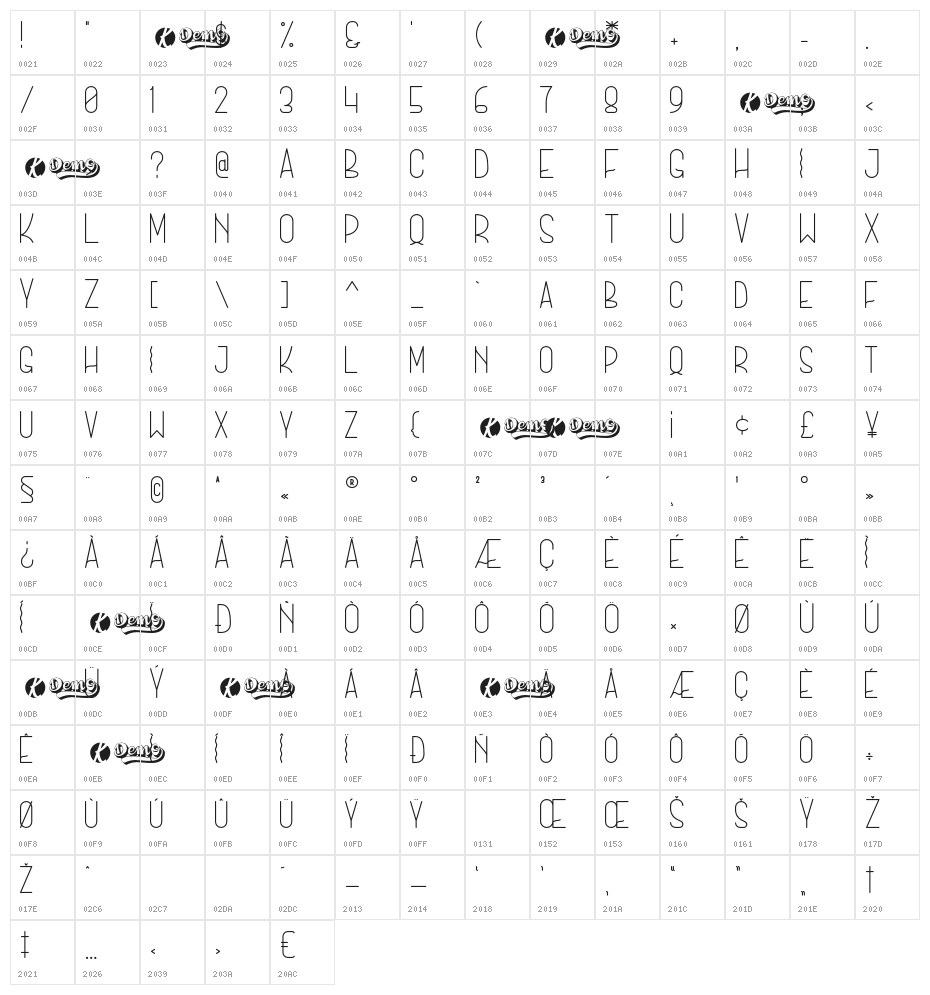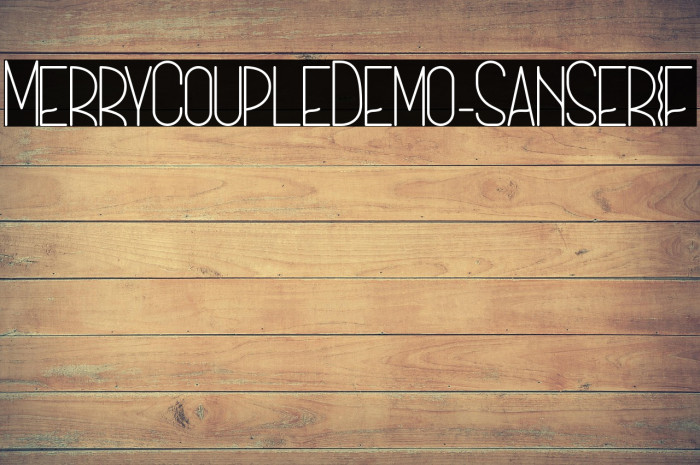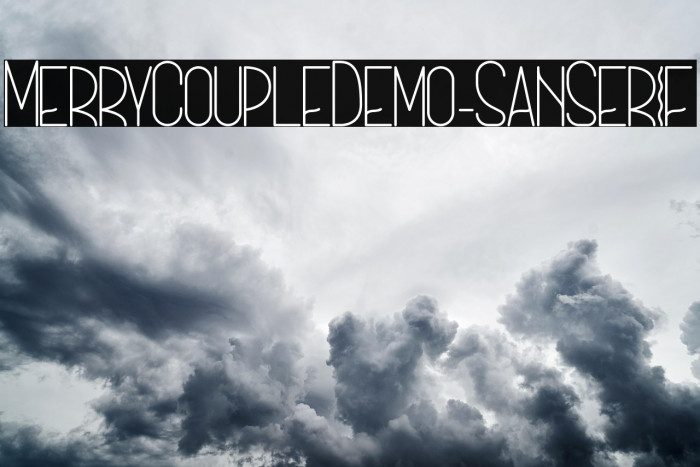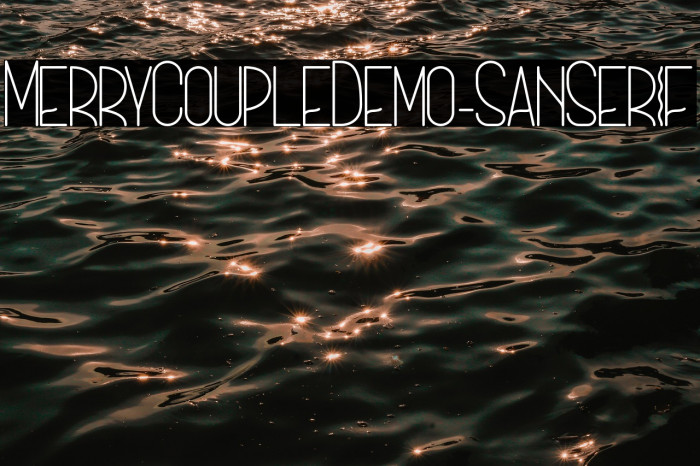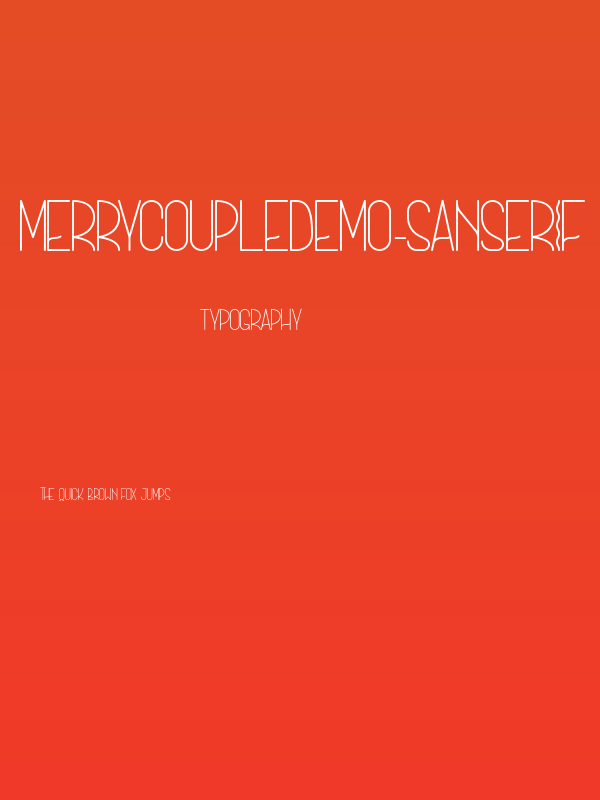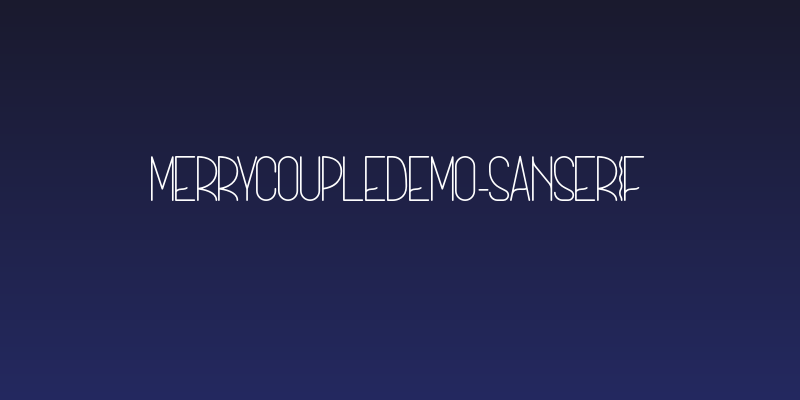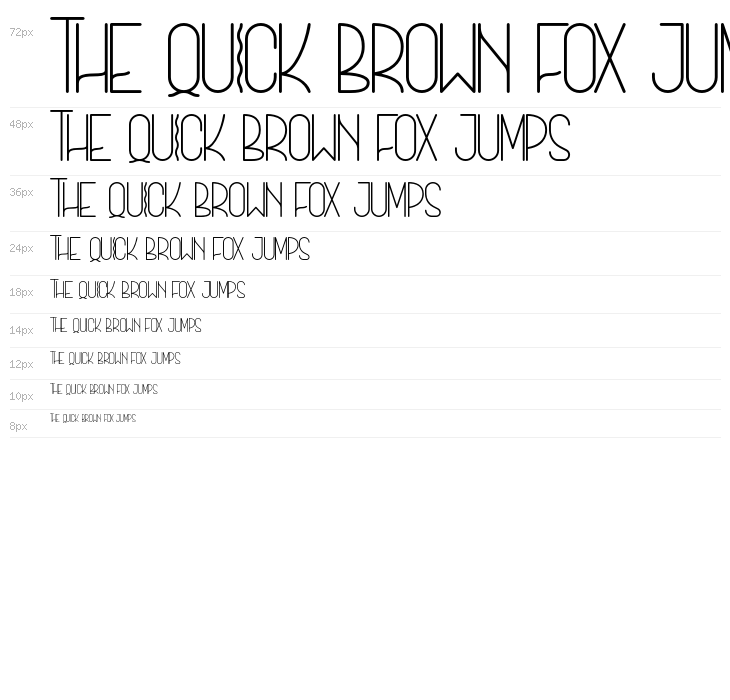
MerryCoupleDemo-SanSerif Font
MerryCoupleDemo-SanSerif Description
This font features a modern, clean design with a distinct geometric structure. The uppercase letters are tall and narrow, creating a sleek and elegant appearance. The lowercase letters maintain a consistent style, complementing the uppercase with their elongated forms. The numerals are similarly styled, ensuring uniformity across all characters. Special characters are included, adding versatility to the font. The overall look is minimalistic yet sophisticated, making it suitable for contemporary design projects.